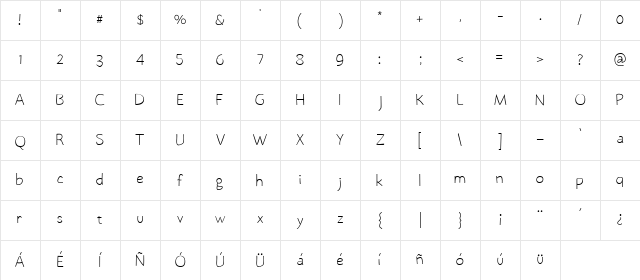
Zalight is a composed and adaptable typeface that performs quietly and consistently across a wide range of design contexts. Its slender proportions lend an understated elegance to any composition.